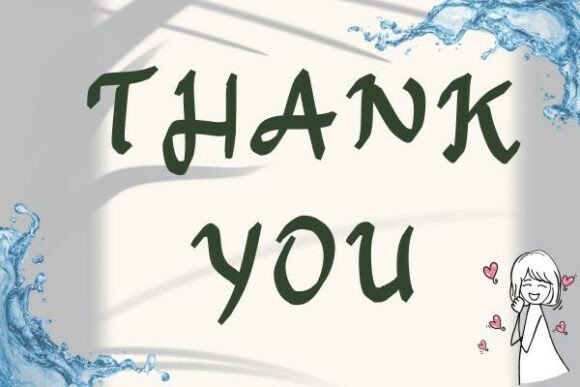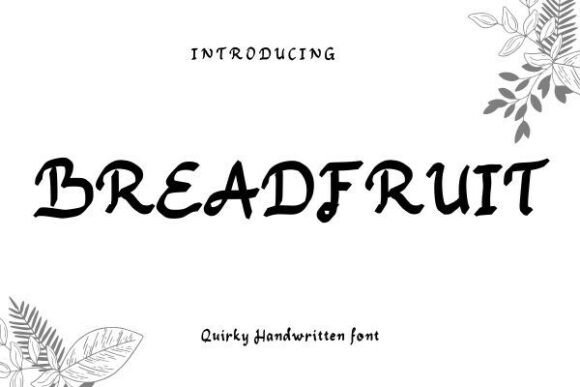
The Breadfruit Font: A Quirky, Handwritten Gem for Creative Projects
I still remember the design project that led me to discover the Breadfruit font. I was working on a branding campaign for a local artisanal bakery, and I needed a font that would capture the warmth and personality of their handcrafted products. After hours of searching, I stumbled upon Breadfruit, and it was love at first sight. The font’s unique blend of casual handwriting and sophisticated artistry instantly resonated with the bakery’s brand aesthetic.
An Honest Review of Breadfruit Font
- ✨ Rhythmic, brush-like strokes that mimic natural ink flow, giving the font a distinctive, organic feel.
- ✅ Variable stroke weight that adds depth and character to the text.
- 💫 Sharp terminals and slightly irregular character forms that create a sense of expressive elegance.
- 📚 High legibility despite its unique personality, making it perfect for a wide range of creative projects.
While Breadfruit is an amazing font, it’s not without its quirks. Here are a few things to keep in mind:
- 🤔 Limited use in very small font sizes, as the font’s unique characteristics may become less legible at smaller sizes.
- ⚠️ Some characters may require manual kerning to achieve optimal spacing and readability.
A Practical Guide to Using Breadfruit Font
The Story Behind Breadfruit Font
The Breadfruit font was inspired by the natural world and the art of traditional lettering. Its creator, a talented type designer, sought to capture the essence of hand-painted signs and rustic, organic textures in a digital font. The result is a typeface that’s both elegant and quirky, perfect for creative projects that require a touch of personality.
| Font Name | Breadfruit Font |
| Author | Uloel Design |
Q: What is the best use case for Breadfruit font?
A: Breadfruit font is ideal for organic product packaging, artisanal café branding, botanical-themed editorial layouts, and creative personal stationery.
Q: Is Breadfruit font suitable for body text?
A: While Breadfruit font is highly legible, it’s best suited for headlines, titles, and short paragraphs. For longer body text, a more traditional font may be more suitable.